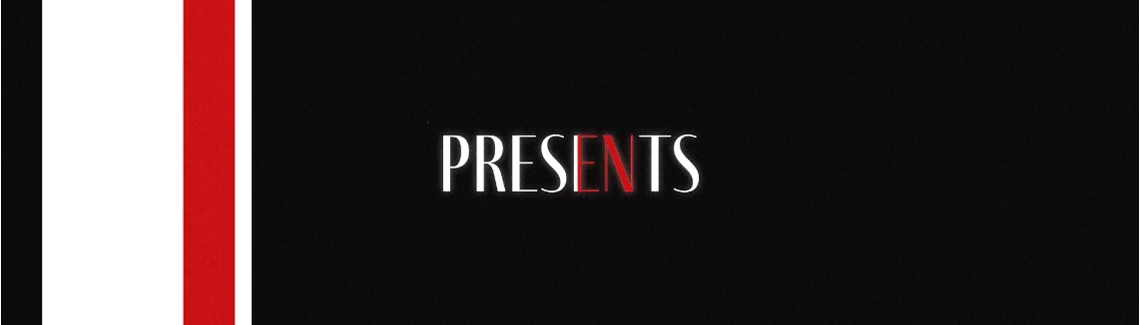
Fino in motion: The fashionable face of style
A dramatic, contemporary Didone titling family that scales beyond the world of looks by tapping into archetypes. This type system amplifies the genre’s most theatrical aspects while bestowing an uncommon flexibility of style and variation.
Some things are best seen, especially things regarded for their aesthetic beauty, so we decided to make a video for Ermin Međedović’s Fino type family. Featuring the fashionable side of Fino, the video was directed by Cecilia Brarda and animated by Martín Campanella. Check out Fino’s striking and expansive sans, serif, and stencil family in the new video.